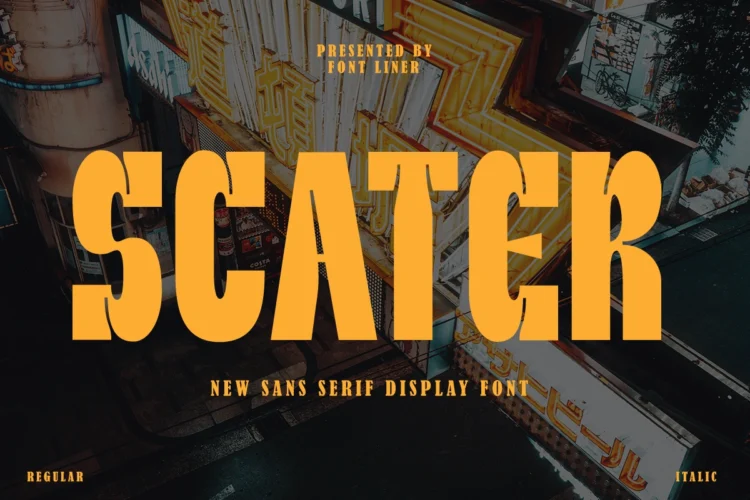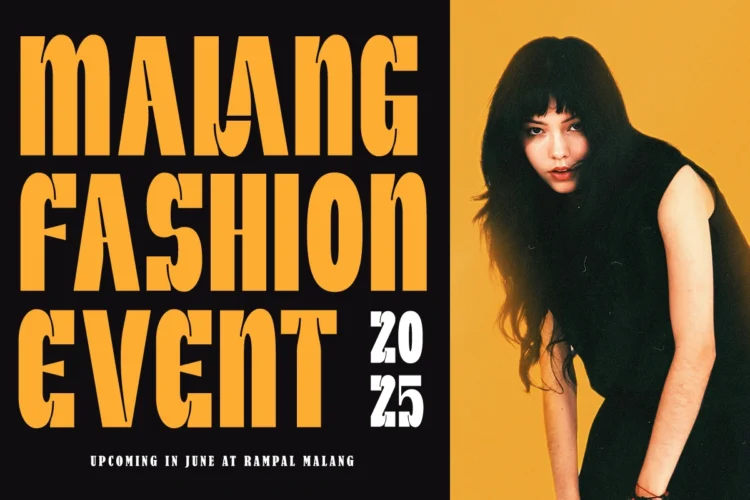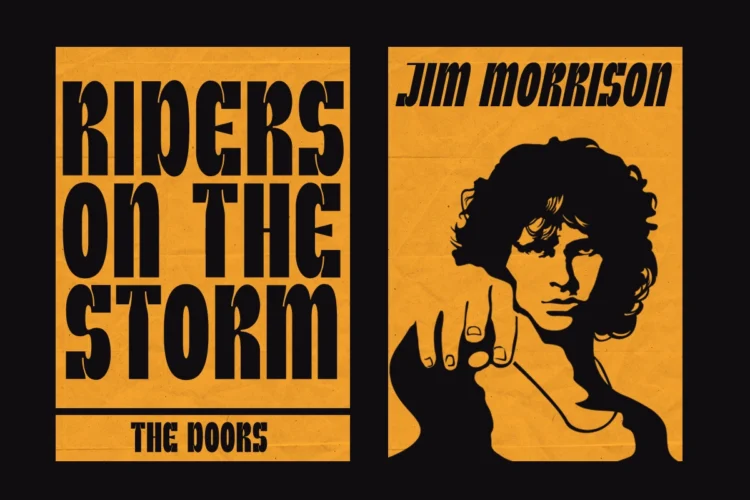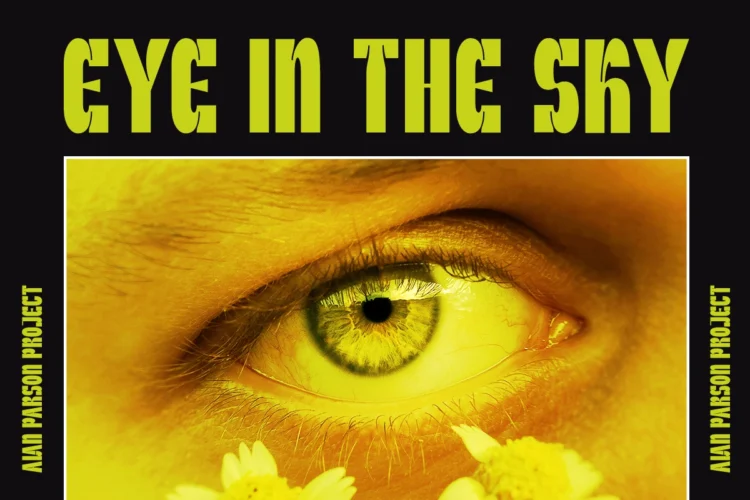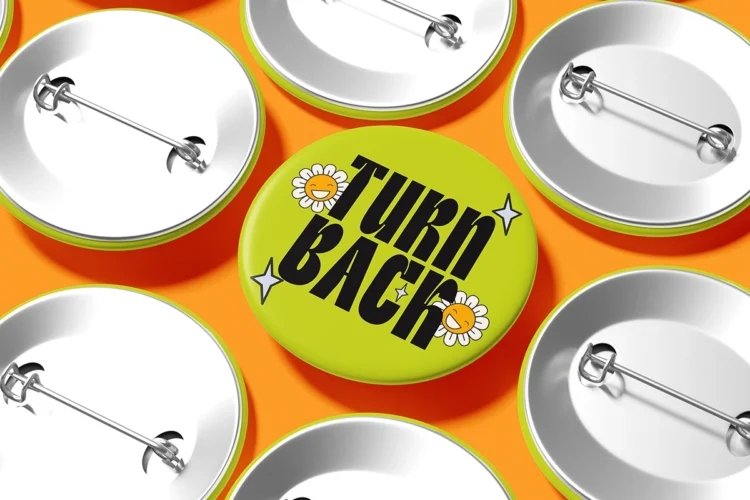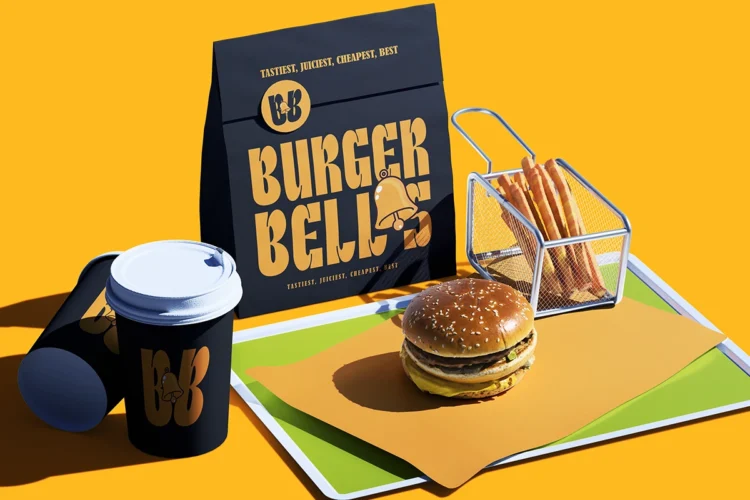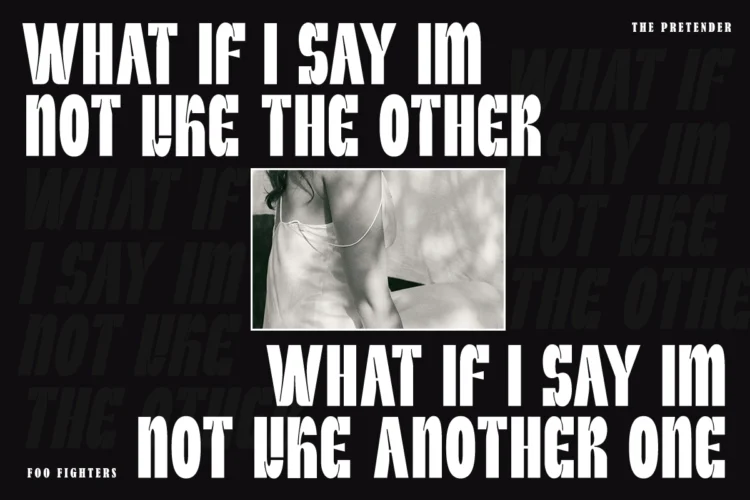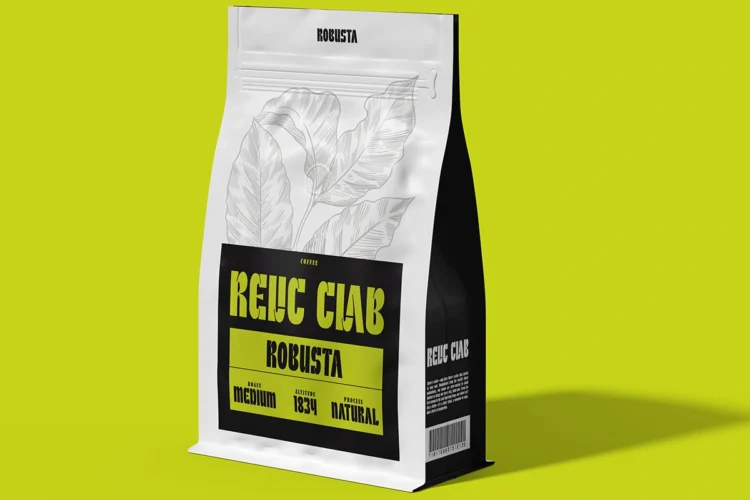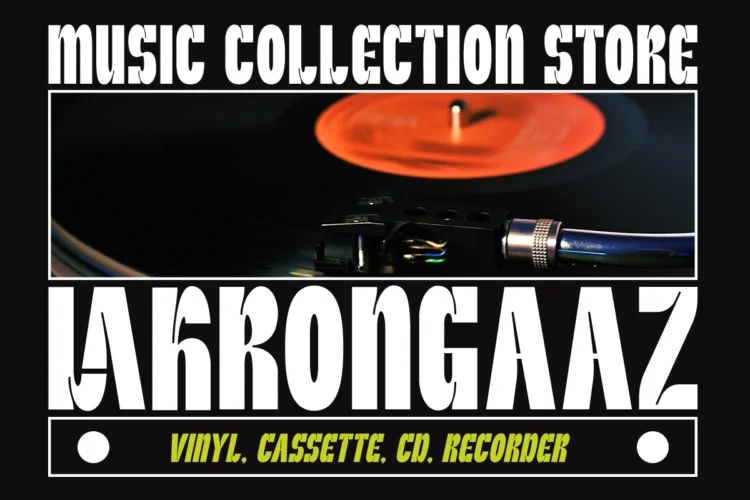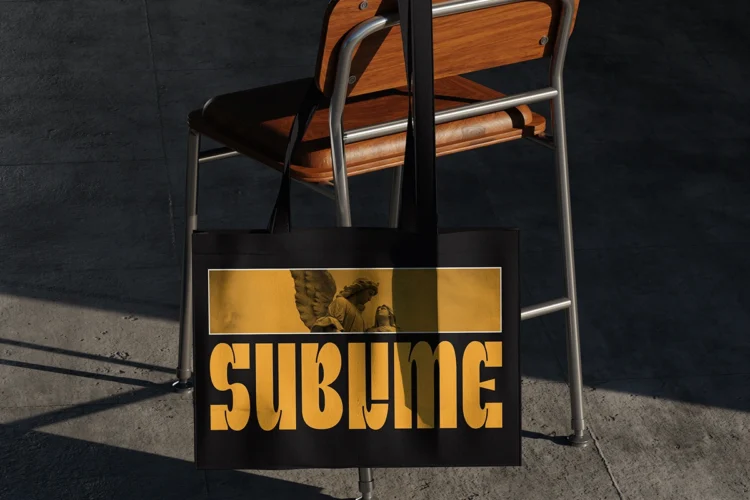
Scater
Scater is a bold sans serif font , carefully crafted for maximum visual impact, this font boasts a tall, compressed structure with strong geometric shapes and vintage undertones. Its commanding presence makes it perfect for posters, branding, editorial titles, and retro-inspired designs, bringing a confident and edgy vibe to any project.
Scater – Sans Serif Display Font